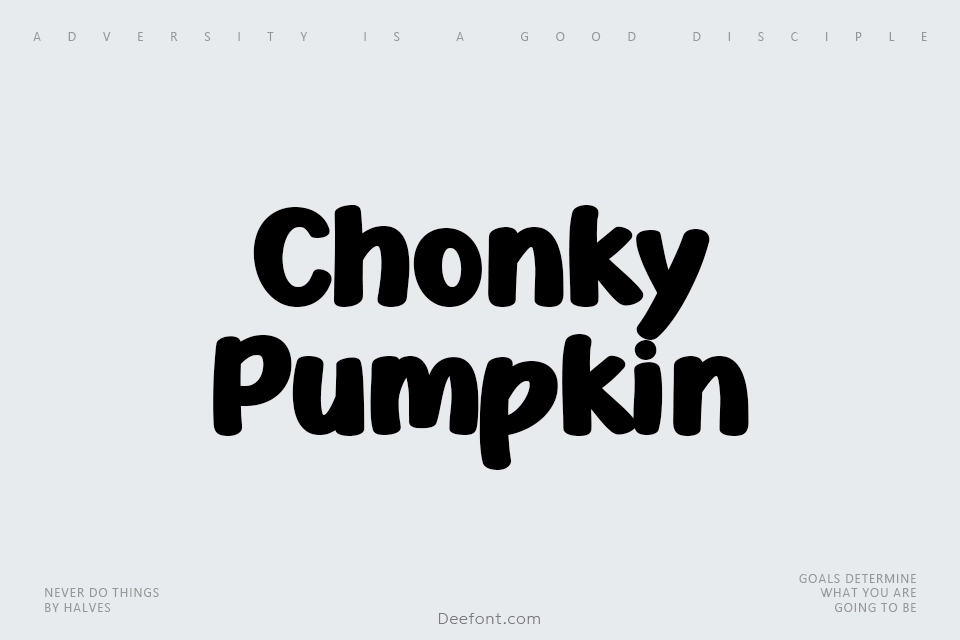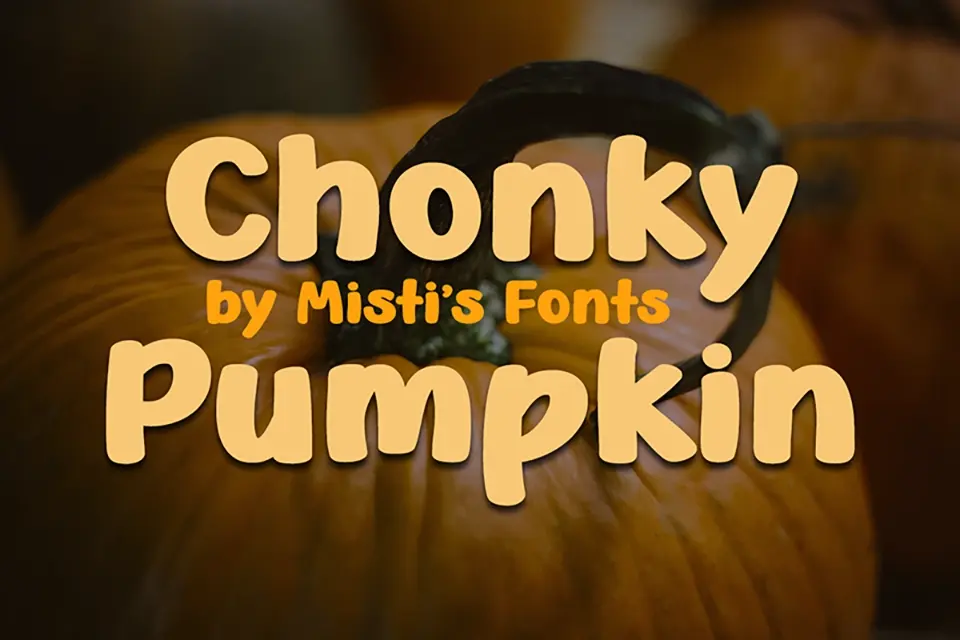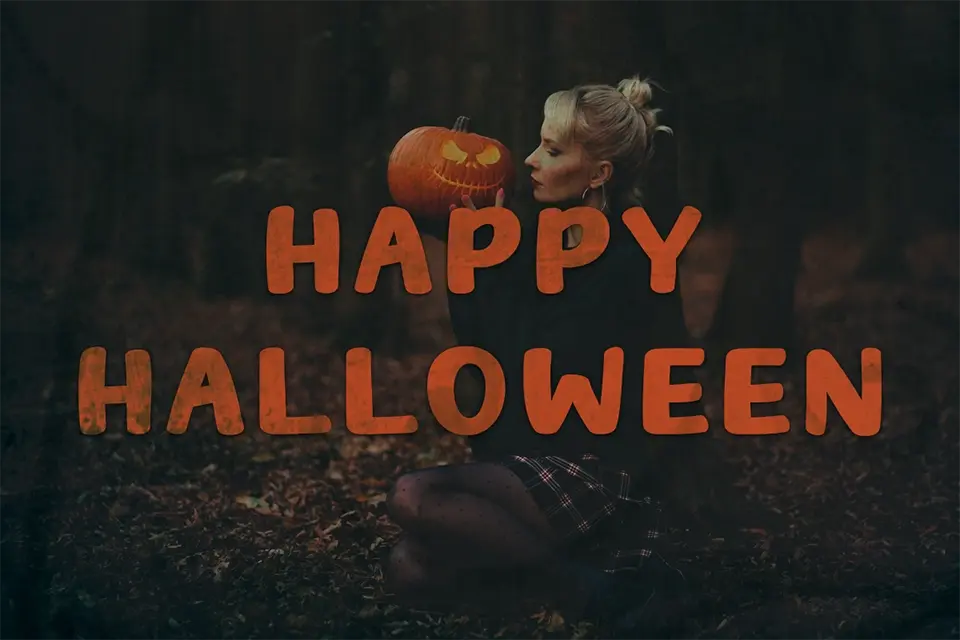
Chonky Pumpkin Font
Chonky Pumpkin is a bold, handwritten display font inspired by the warmth and playfulness of autumn and Halloween. With thick, chunky letterforms, it brings a cozy, whimsical charm to invitations, festive decor, and seasonal branding. The rounded, cartoonish style ensures an inviting and cheerful look for a variety of creative projects, especially those seeking a lighthearted, fun touch. Perfect for designers wanting to capture an autumnal spirit or add some bold personality to their work.